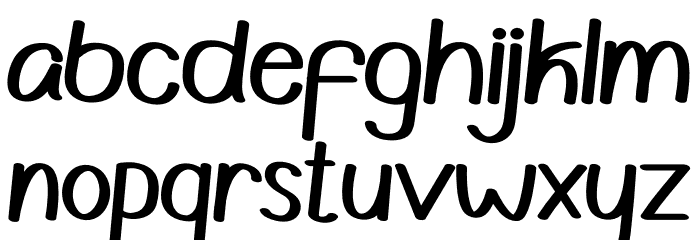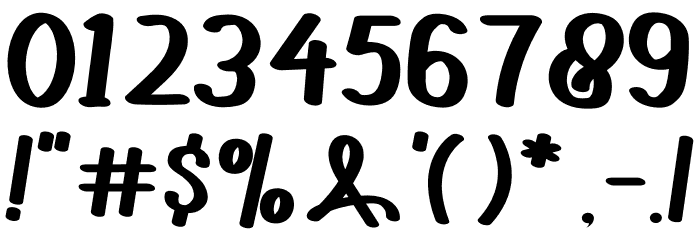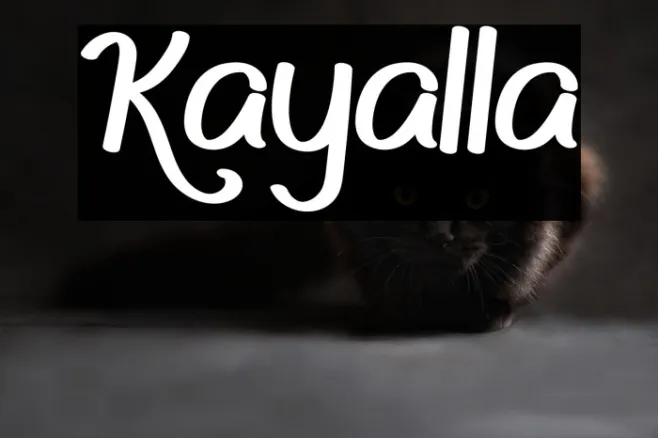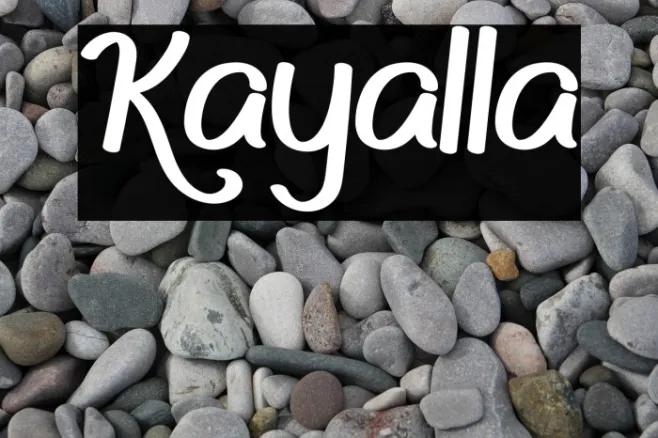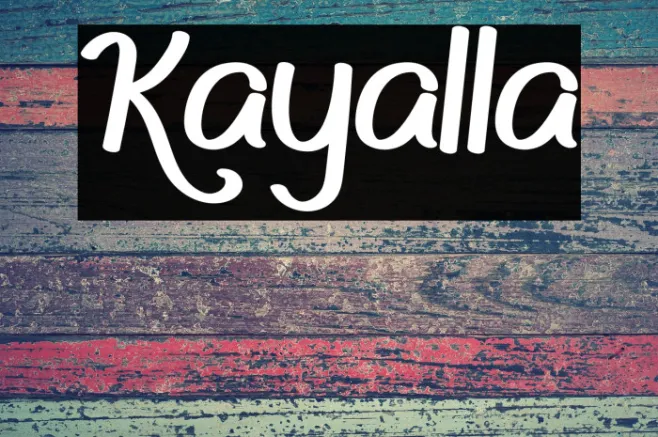
Kayalla Font
This font features a playful and whimsical script style with a handwritten feel. The characters are rounded and slightly slanted, giving them a dynamic and lively appearance. The uppercase letters have unique flourishes, particularly noticeable in letters like 'K' and 'R', which add a touch of elegance. The lowercase letters maintain a consistent flow, enhancing readability while retaining a casual charm. The numerals are bold and clear, making them suitable for various applications. Special characters are creatively designed, maintaining the overall playful aesthetic.
A playful, handwritten script font with rounded, dynamic characters.
- Proposed Projects: Ideal for greeting cards, invitations, children's books, and playful branding projects.
- Category: Script
- Overall Style: Playful
- Use Case: Logos, Invitations, Greeting Cards